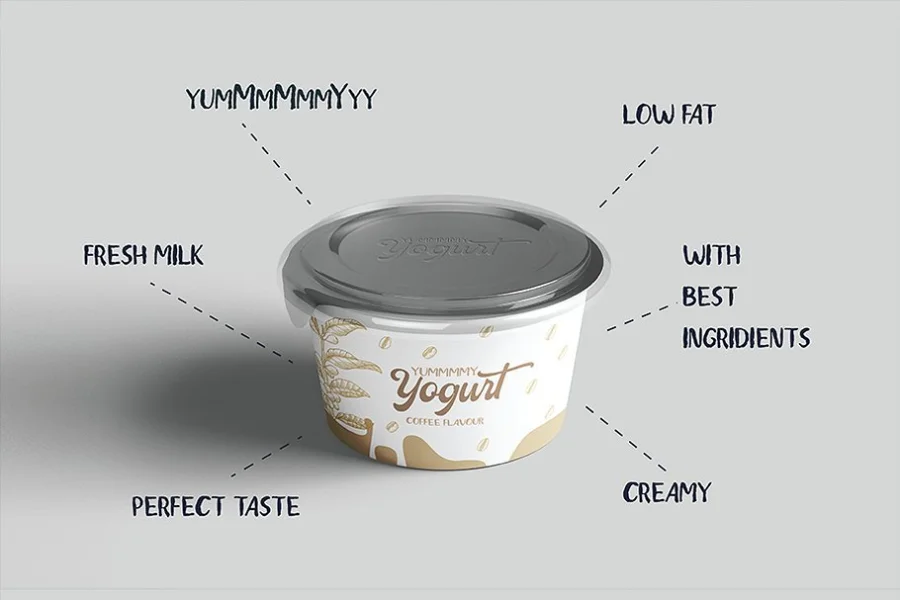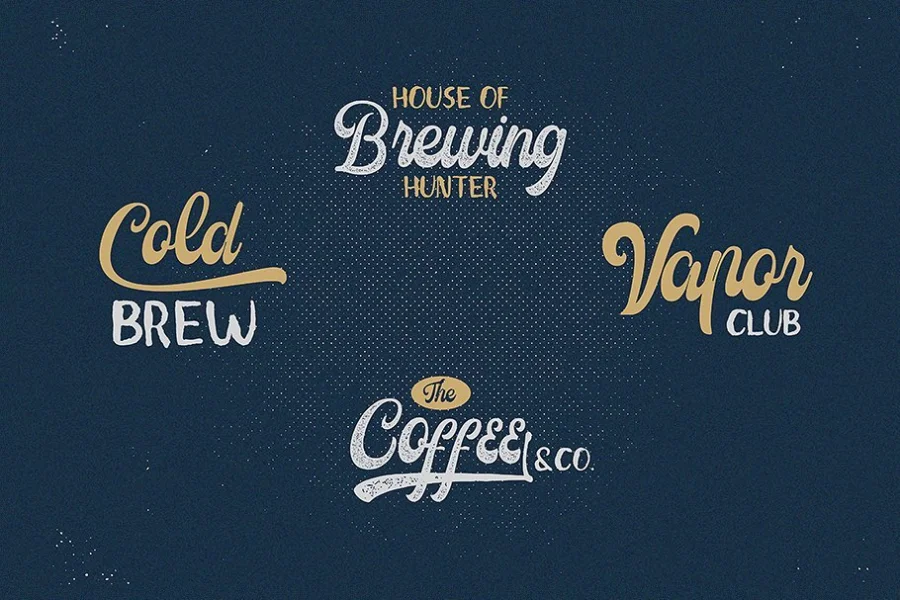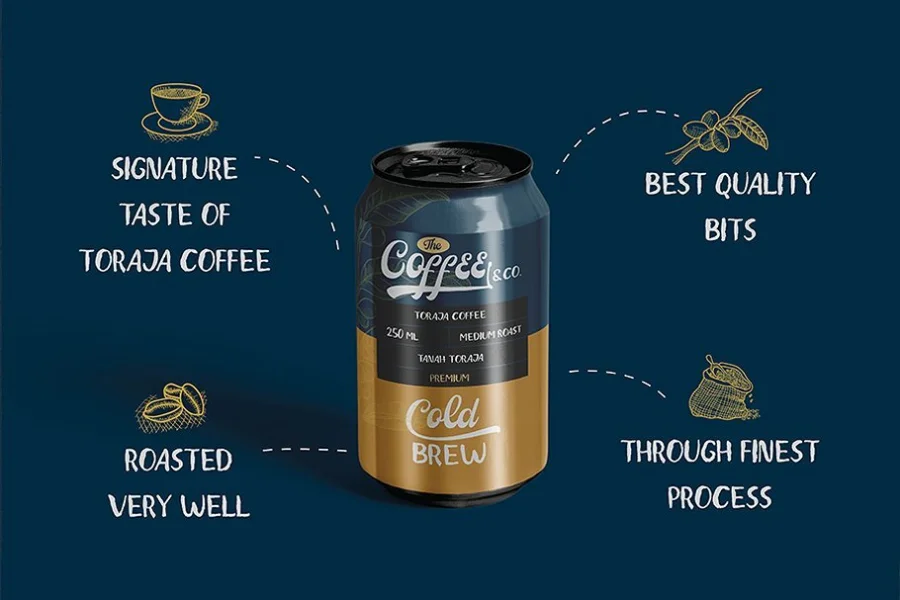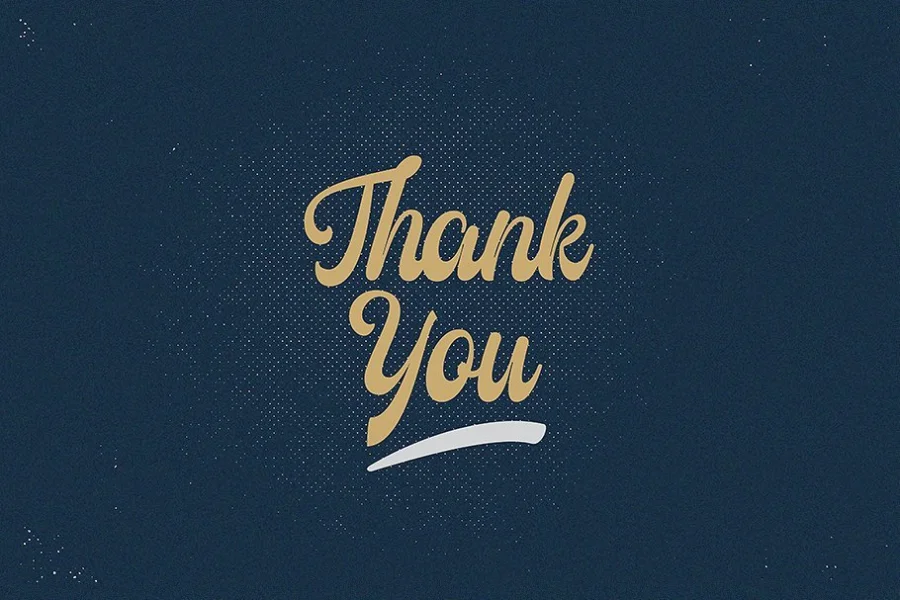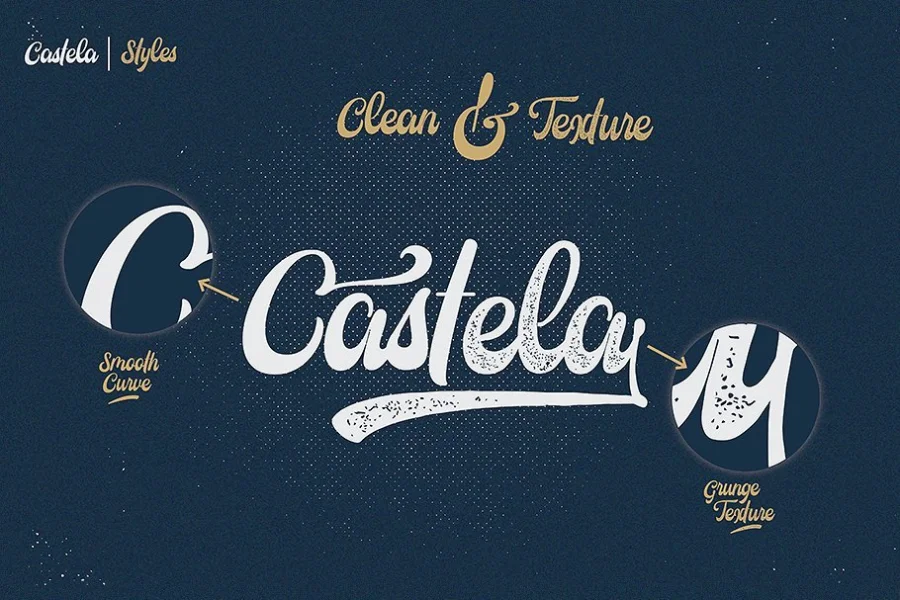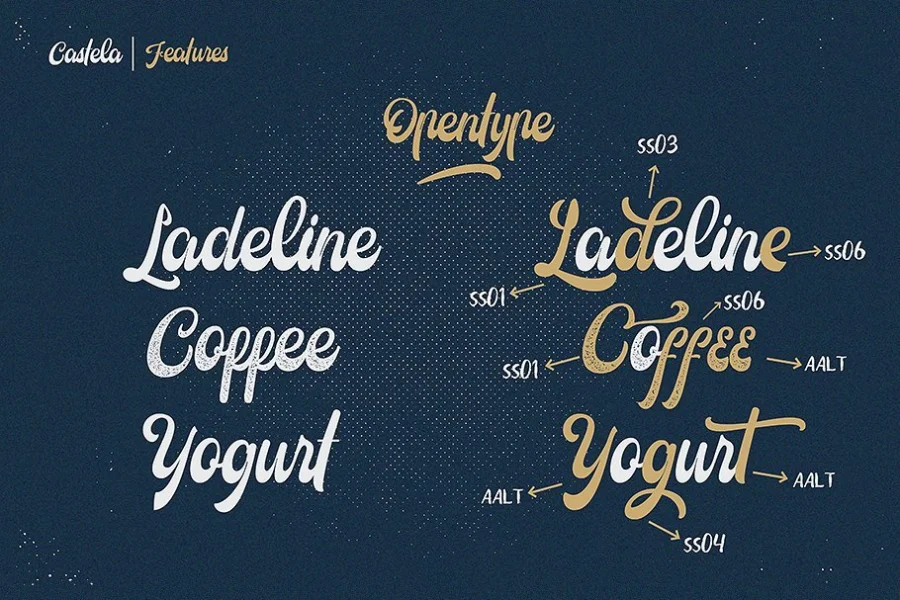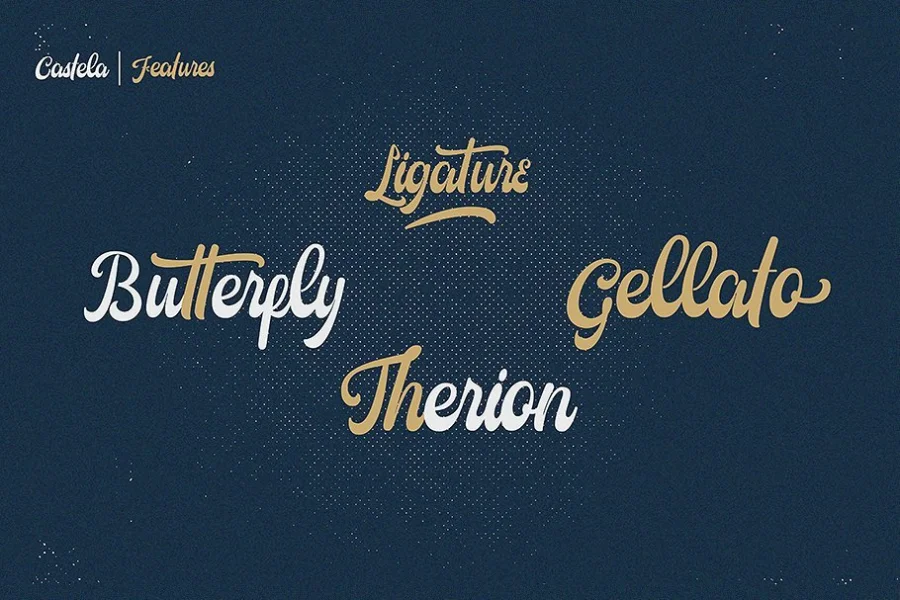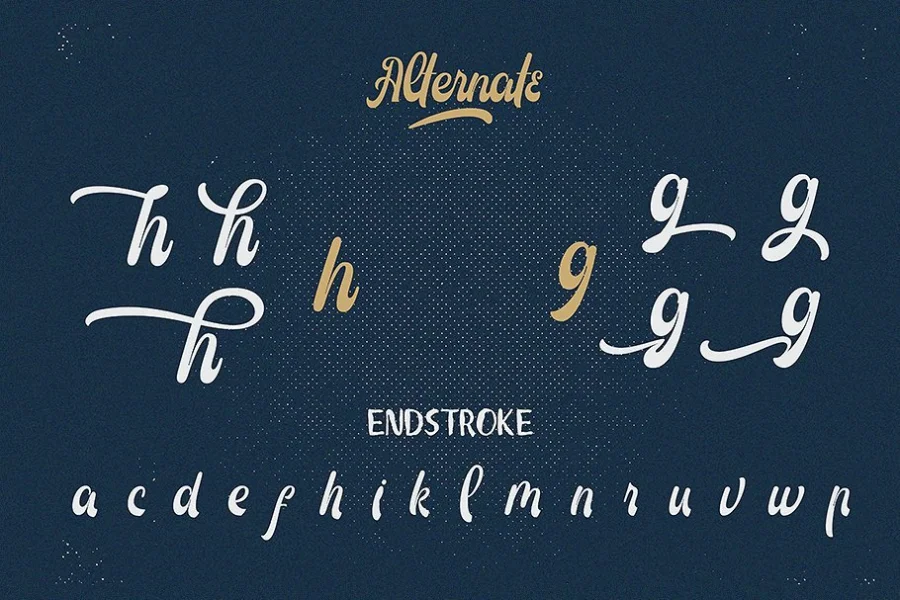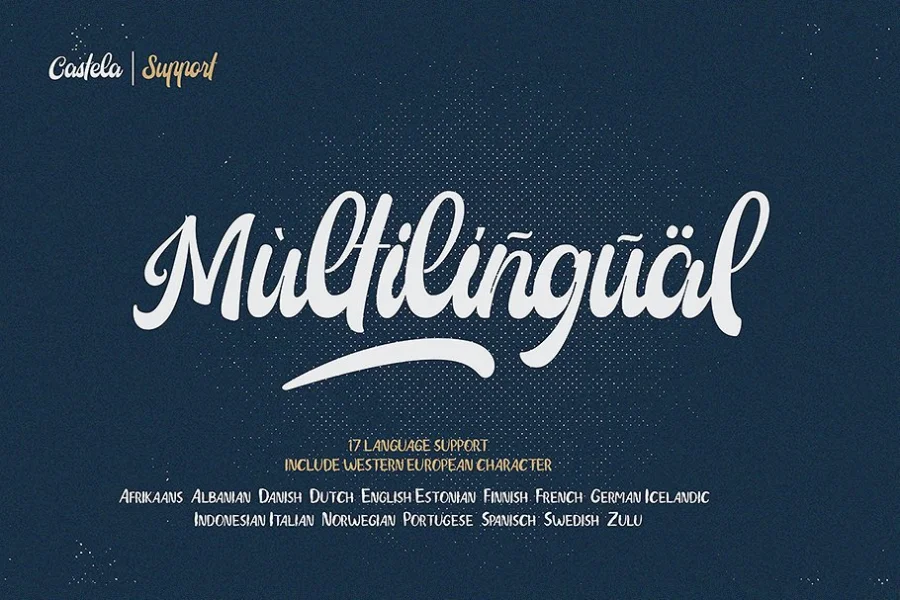
Let us introduce you to Castela. Castela is a script font that is created with a fluffy look. This font is inspired by both modern and vintage packaging. Castela is created carefully to have a look that makes you fell something.